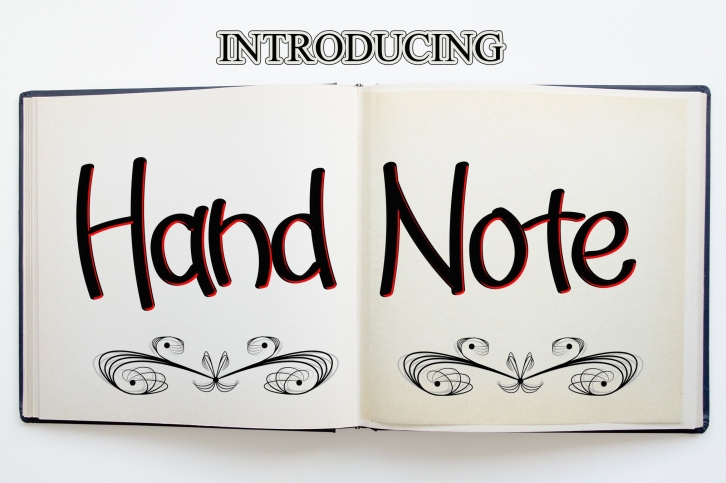
Hand Note is a classic handwritten font. This versatile script font has a wide range of applications, ranging from greeting cards to kids’ crafts, and is guaranteed to add a sweet touch to your next design.